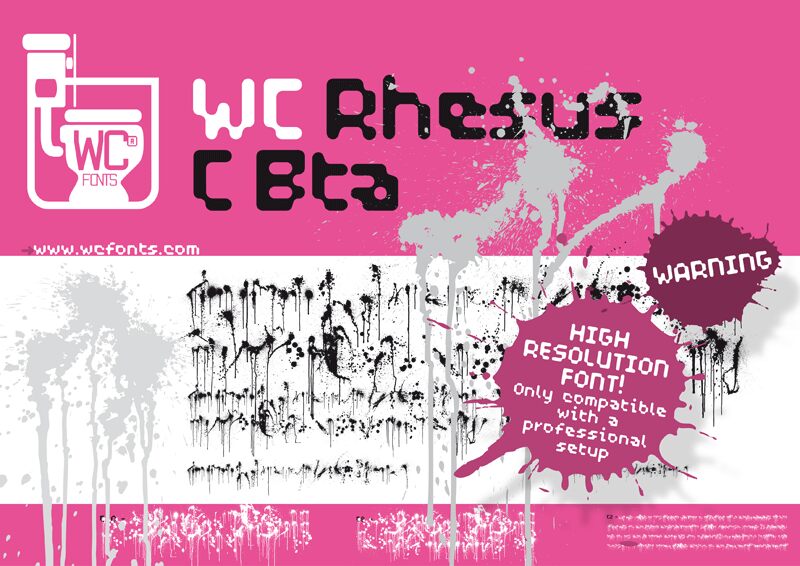
WC Rhesus C 2Bta Italic by WC Fonts is a free ink-splatter art dingbat font filled with drips, bursts, and scattered droplets. Its marks range from dense stains to fine sprays, with unruly variation that resembles real thrown ink.
The splashes can become part of the artwork on music posters, album packaging, and streetwear graphics. They also suit horror event material and rough-edged editorial pages. Across these uses, the uneven marks supply both texture and a handmade motif.